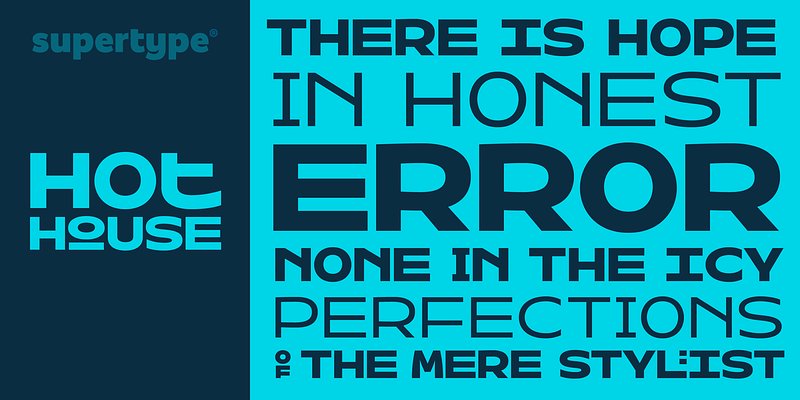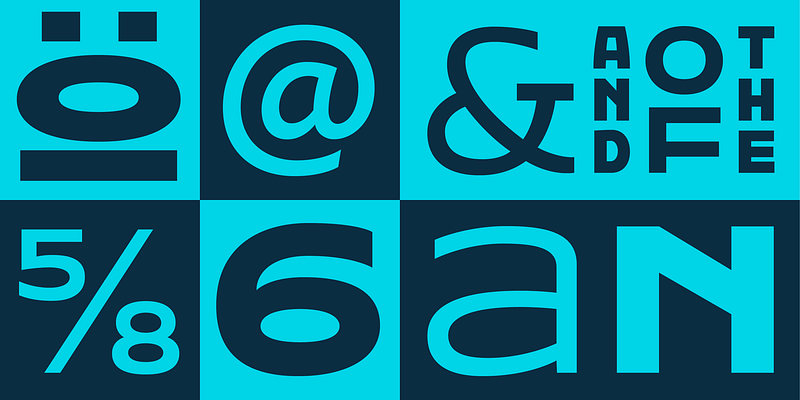
Hothouse was designed in 2001 for The Glasgow School of Art and is still used by the university. It’s inspired by Charles R. Mackintosh’s (1868—1928) explorations of letterforms, renowned architect of The Glasgow School of Art. Based on a square the (almost entirely) mono-spaced Hothouse corresponds well with Mackintosh’s art nouveau architecture.
At supertype® they believe that the central role in any communication design is its typography — you cannot not use type. With this mindset they’ve been designing a diverse range of retail fonts and distinct custom typefaces.
Typography is everywhere in communication design. You can leave out a photo or even color, but never words. That’s why type is one of the most powerful tools in visual communication. By choosing the right font or having one custom designed, you improve the impact of your words, enhance the meaning and underline your message.
For over twenty years, partners Jürgen Huber and Martin Wenzel have been designing retail fonts with a multitude of personalities ranging from outspoken extrovert designs to subtle, convenient workhorses. Next to the off-the-shelf range they have also developed bespoke type for a broad client base of global corporations (GORE®, Lidl Int.), public institutions (German Federal Government, Glasgow School of Art) and local players (South Tyrol, Giesinger Brewery).
Supertype® believe in the power of craftsmanship and its analogue tools but also embrace the design and technology that challenge those classic ideas. This has earned them the appreciation of their clients and recognition from the TDC (Type Directors Club, New York), the iF (International Forum Design), the ATypI (Association Typographique Internationale) and others.